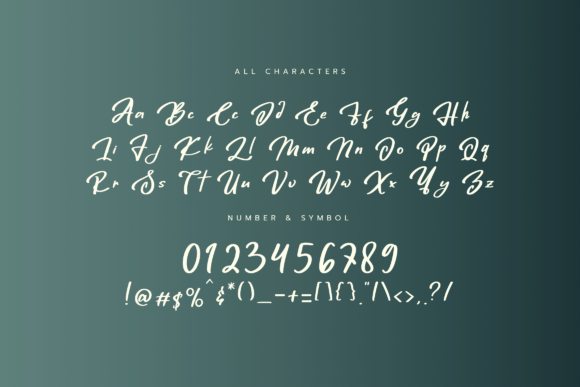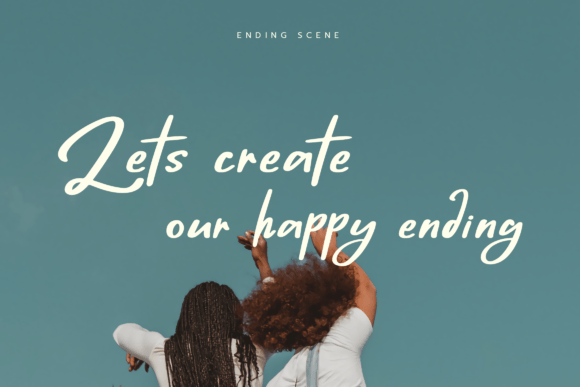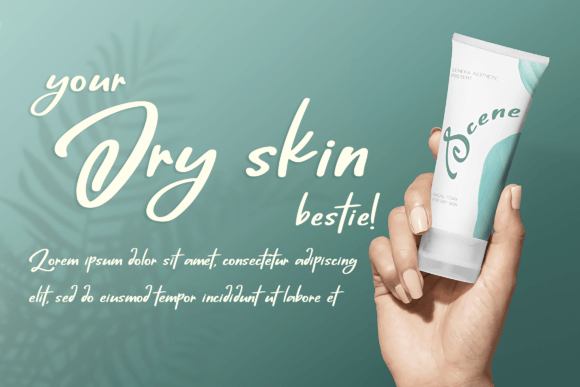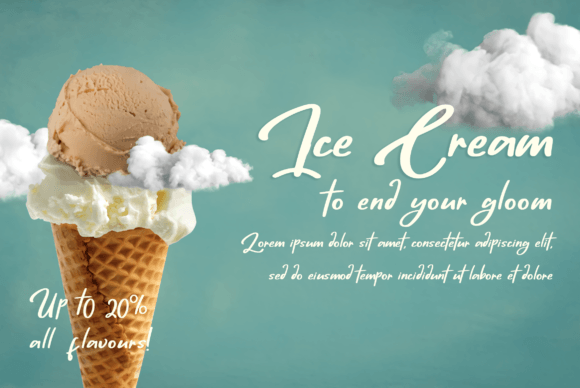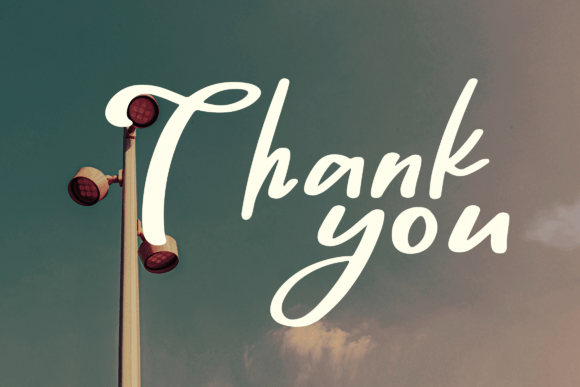
The Perfect Font for Your Next Creative Project: Ending Scene
Ending Scene is more than just a font; it’s a versatile tool that can elevate any design project. Whether you’re a designer, crafter, or creative hobbyist, this font is sure to inspire you to create something fun and memorable.
What Makes Ending Scene So Special?
Ending Scene is a universal and modern font that’s perfect for a wide range of projects, including vacation projects, everyday designs, or even the happiest day in your life. Its playful and handwriting-like style makes it ideal for:
- Happy birthday cards 🎉
- Baby showers 🎂
- Greeting cards 📨
- Headings 📚
- Flyers 📰
- Product packaging 📦
- Book covers 📖
- Printed quotes 💬
- Logos 🏢
An Honest Review: The Good and the Quirks
What I Love About Ending Scene ✨
- 💫 Unique and playful handwriting style that’s sure to grab attention
- ✅ Easy to read and understand, even in smaller font sizes
- 🎉 Highly versatile and adaptable to various design projects
- 📚 Extensive character set, including OpenType features and glyphs
- ⚠️ Some characters may not work well in very small font sizes (less than 10pt)
- 🤔 Limited availability of stylistic alternates, but still offers a range of options
The Backstory Behind Ending Scene
The story behind Ending Scene is one of creativity and inspiration. The font was designed by a talented typographer who wanted to create a unique and playful handwriting font that would bring joy to designers and crafters. With its extensive character set and OpenType features, Ending Scene is the perfect tool for anyone looking to add a personal touch to their designs.
| What type of projects is Ending Scene best suited for? | Ending Scene is a versatile font that’s perfect for a wide range of projects, including birthday cards, baby showers, greeting cards, headings, flyers, product packaging, book covers, and more. |
| Is Ending Scene available in different font weights? | Currently, Ending Scene is available in a single font weight. However, the font’s versatility and range of OpenType features make it suitable for a wide range of design projects. |